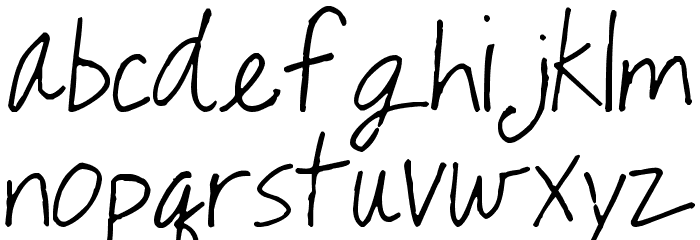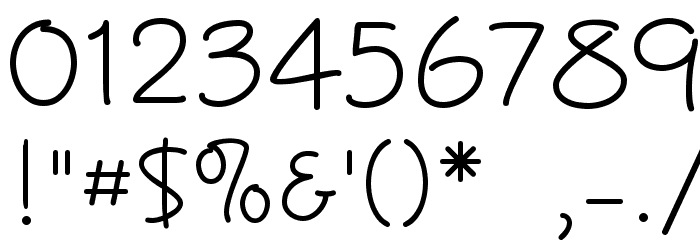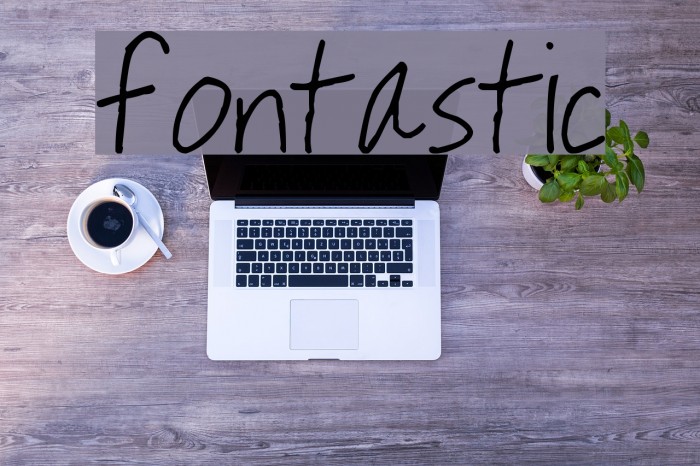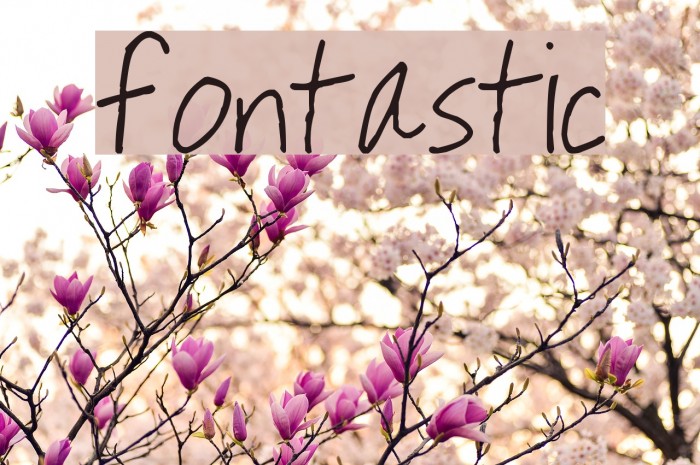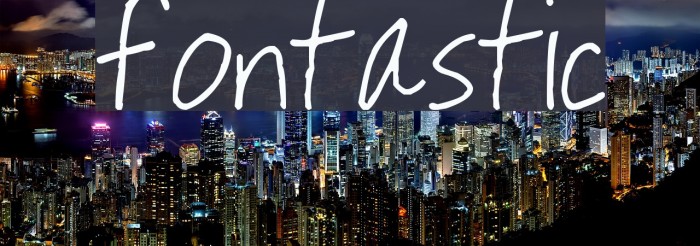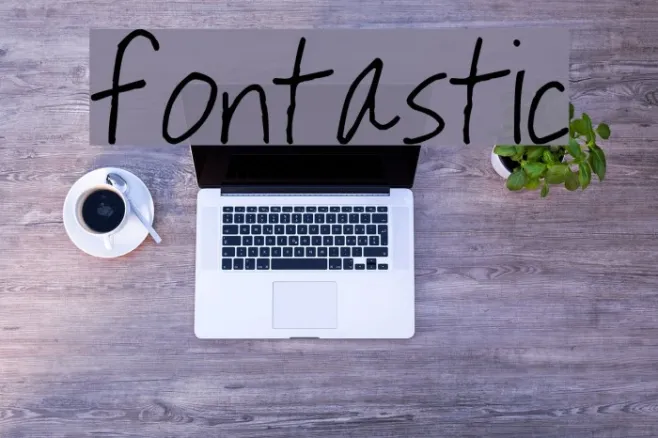
fontastic Font
This font features a casual, handwritten style with a playful and informal appearance. The letters are slightly slanted, giving it a dynamic and lively feel. The strokes are uneven, mimicking the natural flow of handwriting, which adds a personal touch. The uppercase and lowercase letters maintain a consistent style, with rounded edges and varying stroke thickness that enhances its handwritten charm. The numbers and special characters follow the same design principles, ensuring uniformity across all characters. This font is ideal for projects that require a personal, friendly, and approachable aesthetic.
A casual, handwritten font with a playful and informal style.
- Proposed Projects: Greeting cards, personal invitations, casual branding, social media graphics.
- Overall Style: Casual, Playful
- Use Case: Logos, Headlines, Informal Text